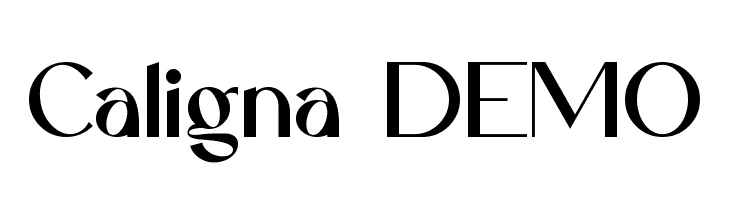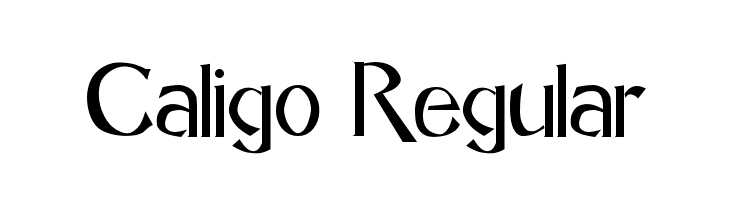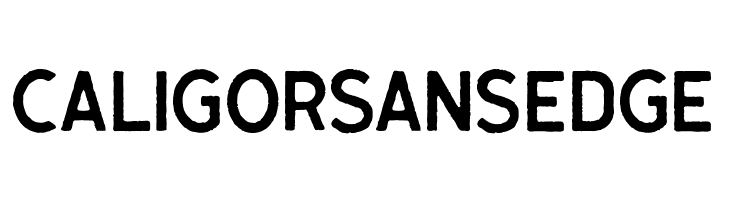
A modern, high-contrast font with elegant, geometric lines.
A modern, angular font with bold strokes and geometric influences.
A bold, modern font with tall, slightly condensed characters and consistent stroke thickness.
A bold, condensed font with uniform strokes and a modern, geometric style.
A bold, rugged font with a vintage industrial feel and textured edges.
A modern, bold sans-serif font with clean lines and geometric shapes.
A bold, rugged font with a vintage, handcrafted appearance.
A bold, textured sans-serif font with a vintage, stamped appearance.
A bold, distressed font with a vintage stamp-like appearance.
A bold, distressed font with a vintage, rubber stamp appearance.